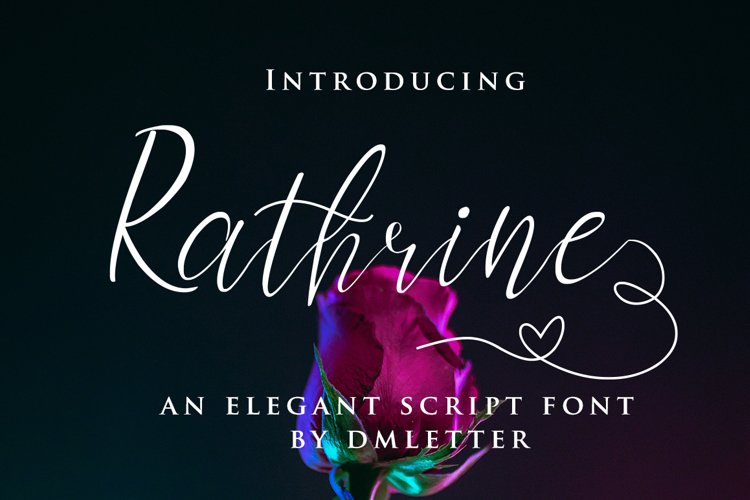
The Rathrine is an elegant script font. It has a feminine feel which makes it perfect for adding an upscale and chic look to your designs.
It’s perfect for invitations, branding, logos, labels, wedding crafts, social media posts, advertisements, and much more!